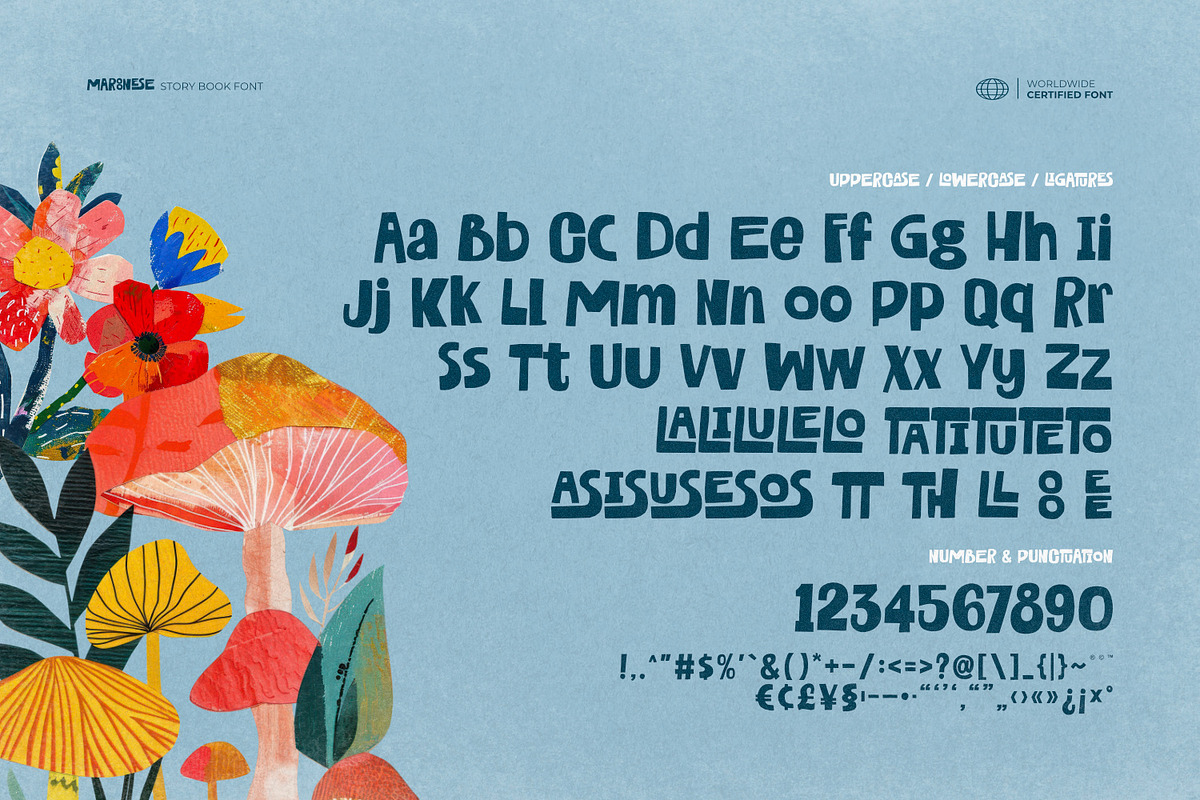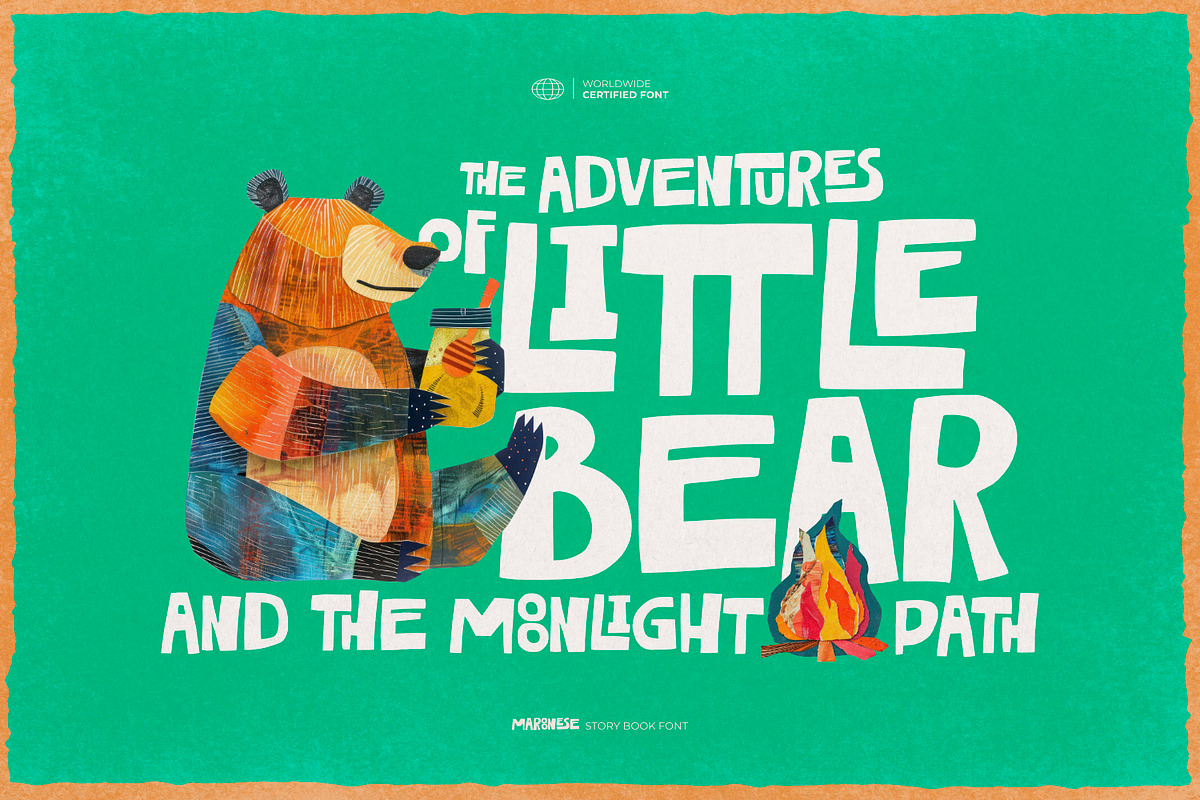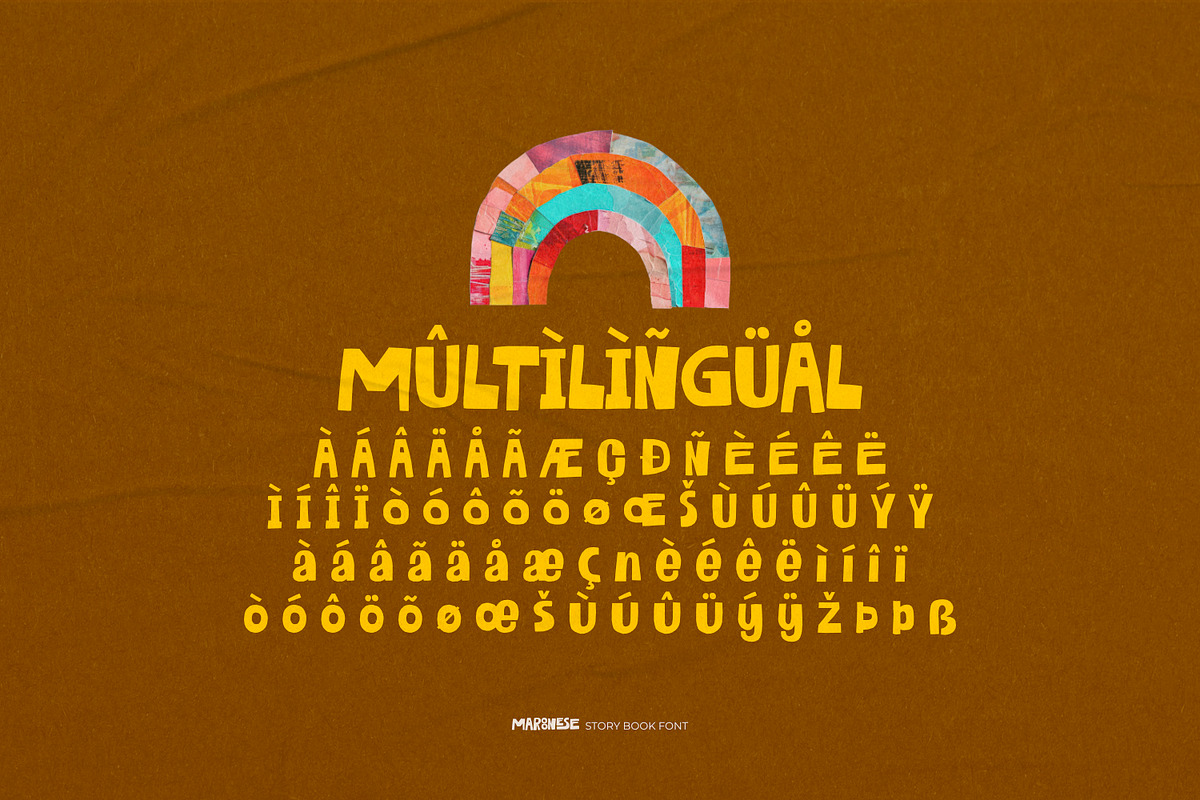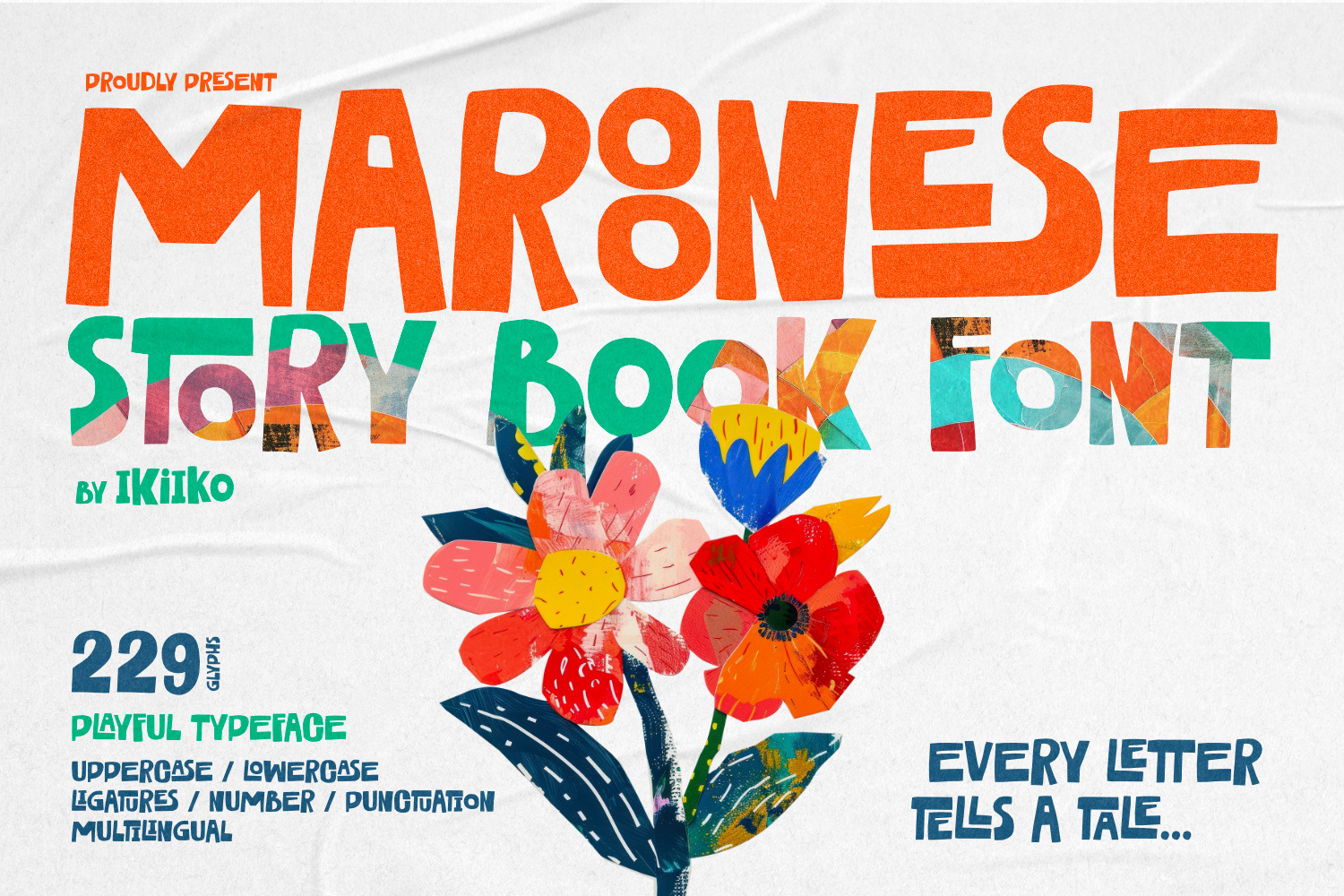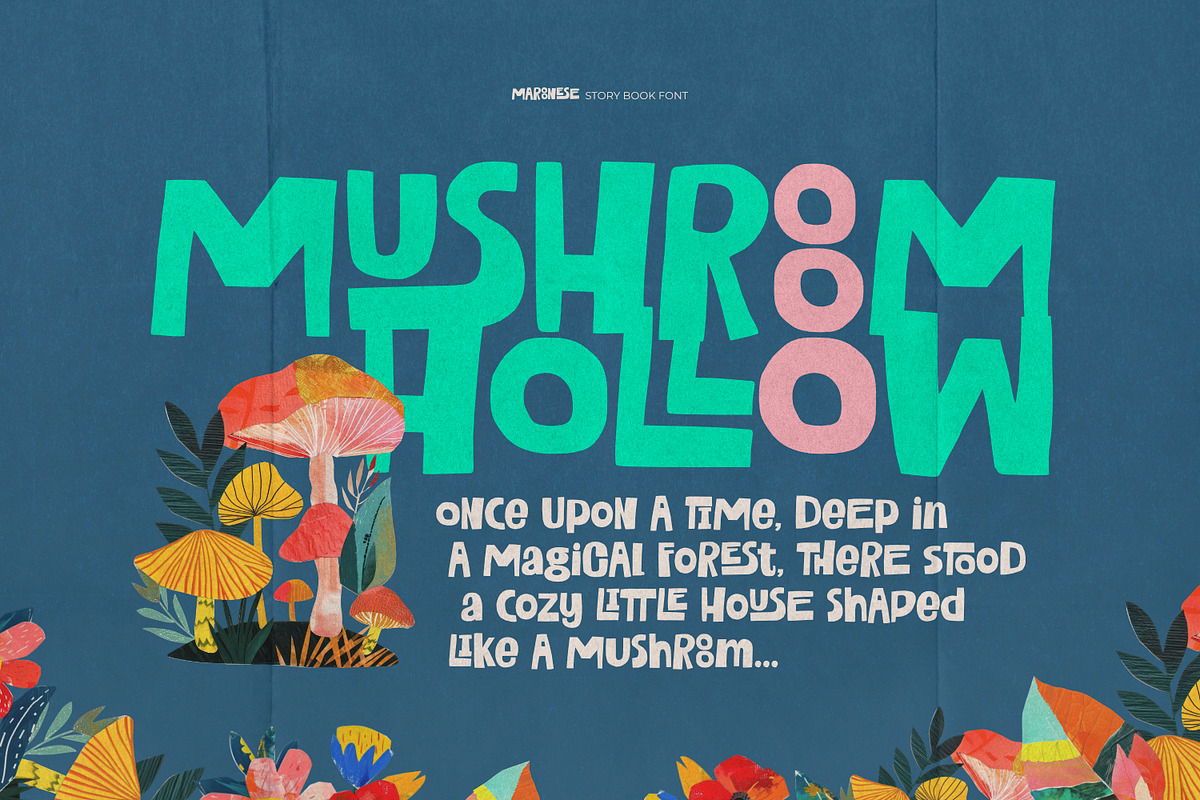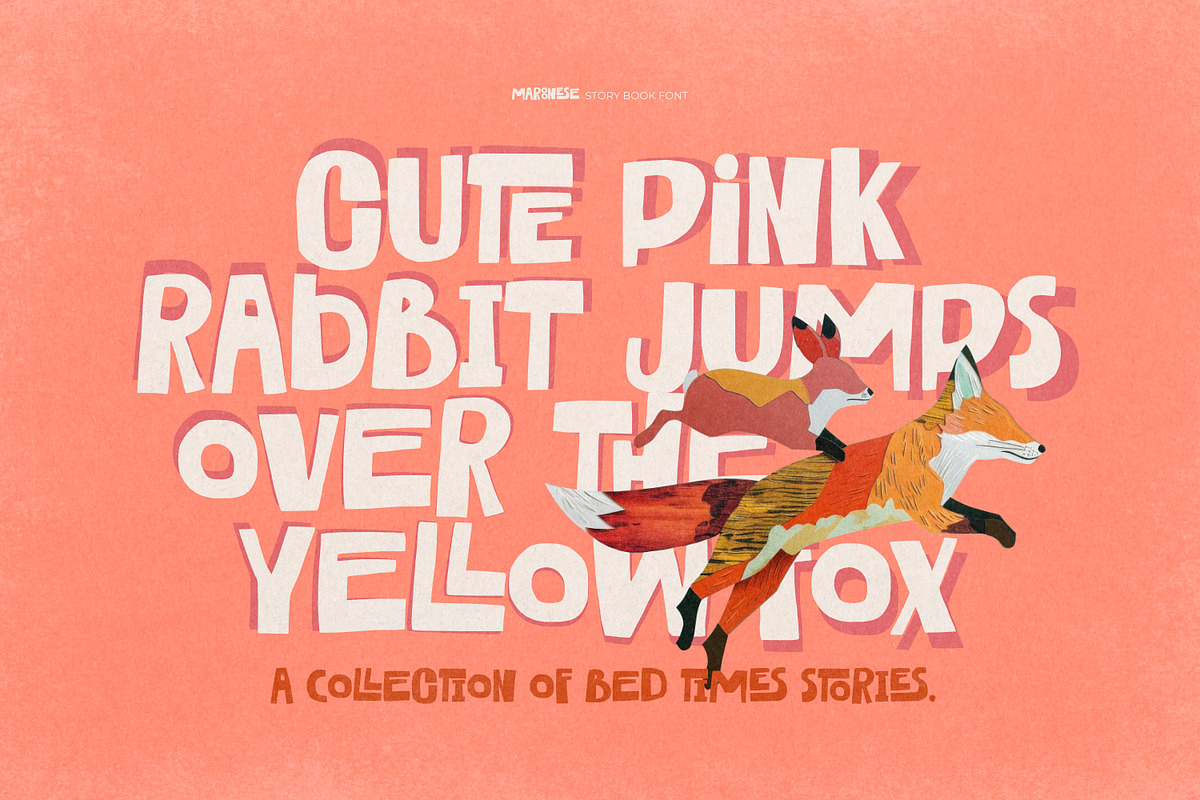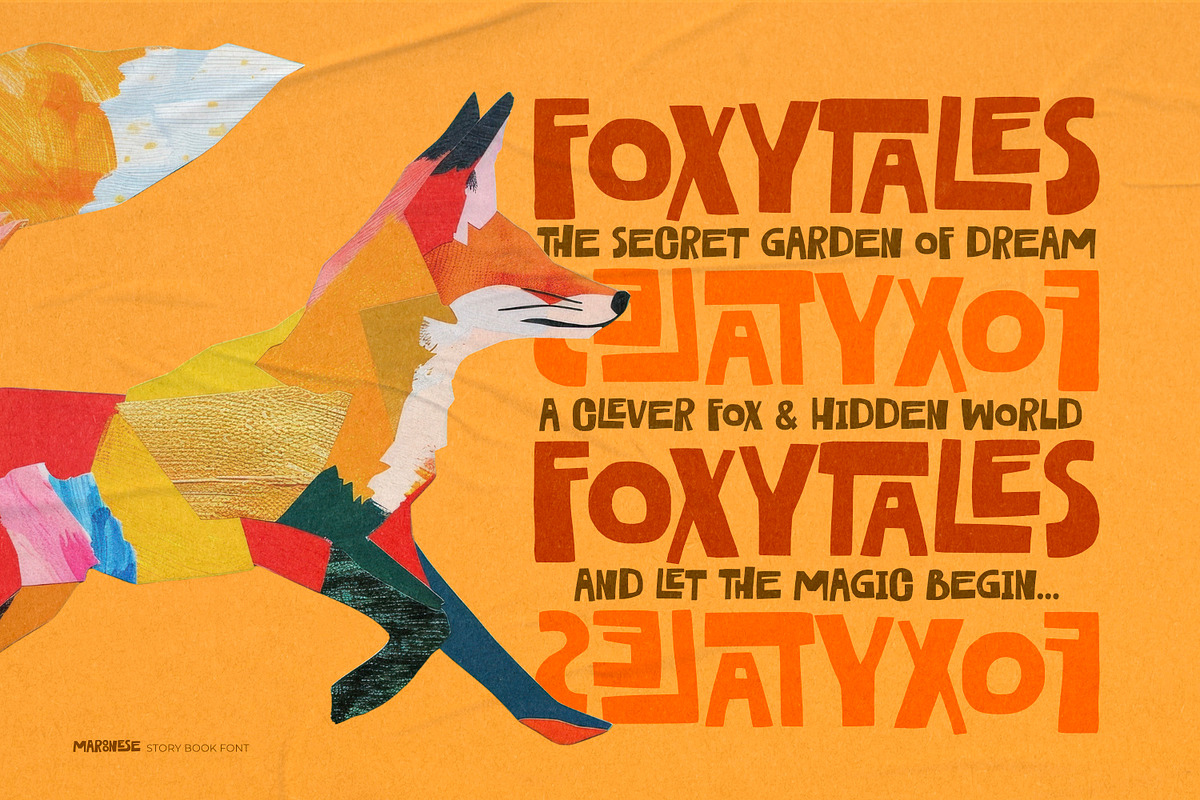
Maroonese - Story Book Font
Proudly present Maroonese - Story Book Font, created by ikiiko.
Maroonese is a bold sans-serif typeface crafted to bring your kids' storybooks and creative projects to life. With its fancy doodle-inspired design, this font exudes a sense of fun and cheerfulness, making it the perfect choice for illustrating dreams and fairy tales. Its playful yet clean style ensures readability while adding a whimsical touch to your stories. Whether you're designing a magical world or narrating adventurous tales, Maroonese will spark joy and imagination in every letter!